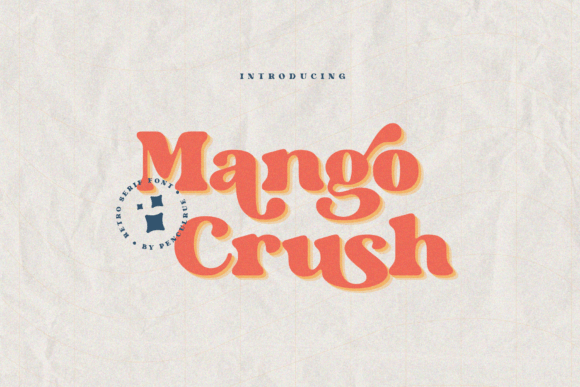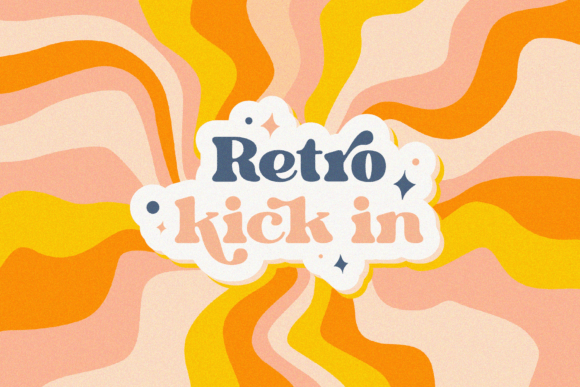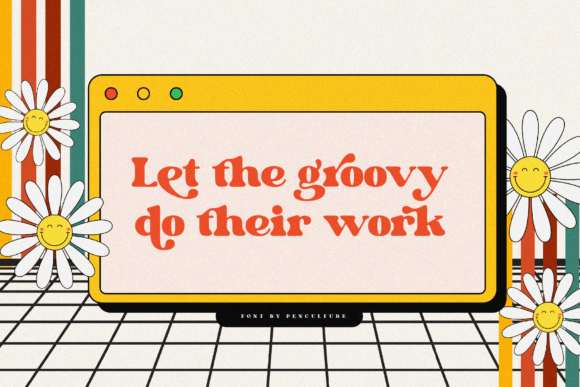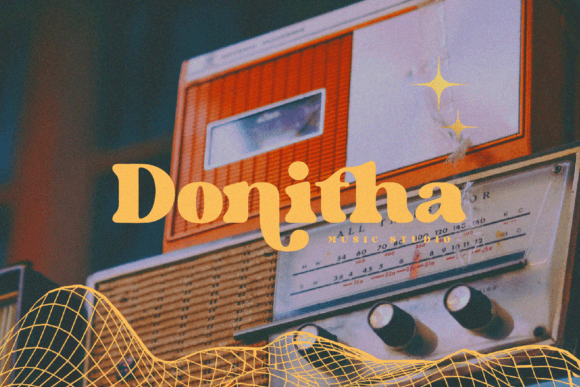
Mango Crush Font
About the Mango Crush Font
Meet Mango Crush Font, a stunning font that brings a touch of elegance and professionalism to any design. Mango Crush is a retro serif font with a smooth curve. You can feel the groovy and sweetness of this font in every shape of the letter. Mango Crush is perfect for any kind of design project like branding, logo design, invitation, and embroidery projects.
Mango Crush’s retro style and smooth curves make it ideal for headlines, short text blocks on posters, and branding applications where a touch of vintage charm is desired. It works exceptionally well for projects evoking feelings of nostalgia, fun, or a playful sophistication. Avoid using it for lengthy body text or UI elements; its decorative nature can hinder readability in these contexts.
The font’s core personality is cheerful and nostalgic, with a hint of boldness. This makes it a strong choice for food and beverage brands, vintage-inspired apparel, or event invitations.
Pairing Mango Crush with a clean sans-serif like Montserrat or a geometric sans-serif like Futura provides a balanced contrast. For a more playful look, a handwritten script font could be incorporated sparingly. Using a neutral serif like Garamond for smaller supporting text also enhances readability and maintains visual harmony.
Mango Crush Font Usage Examples
Mango Crush Font Example